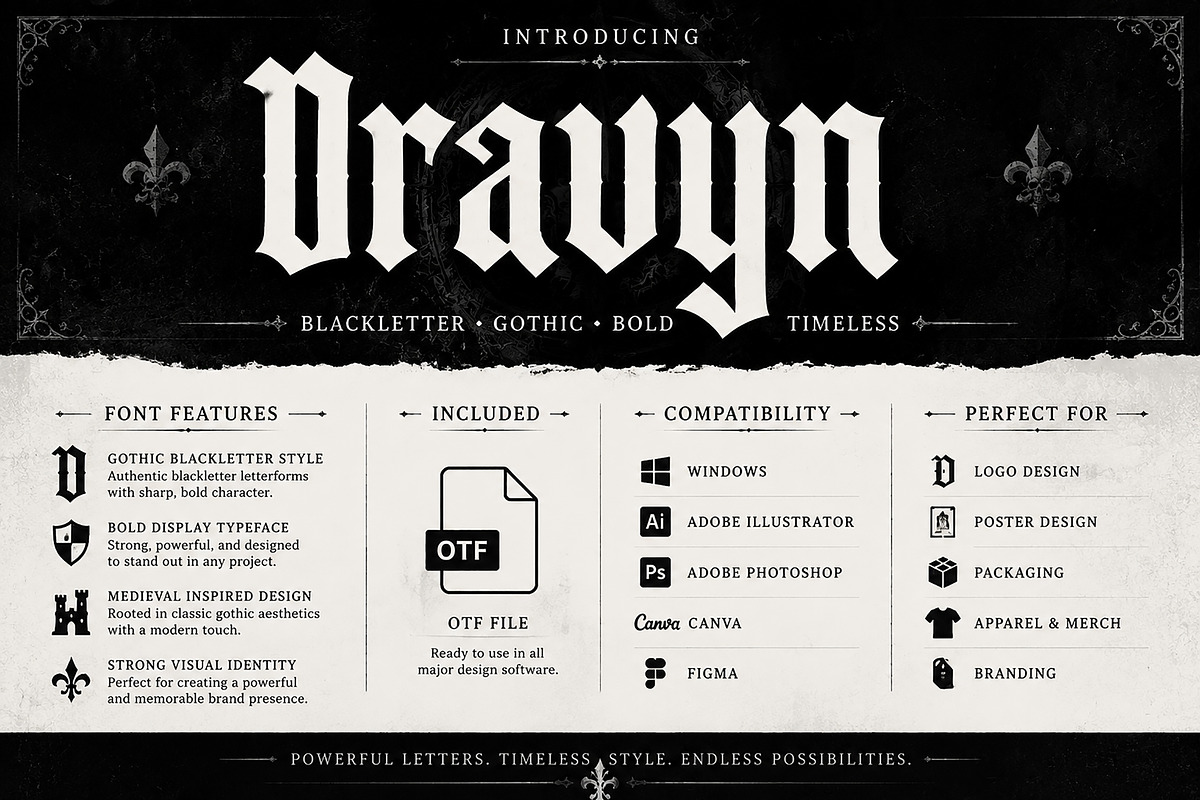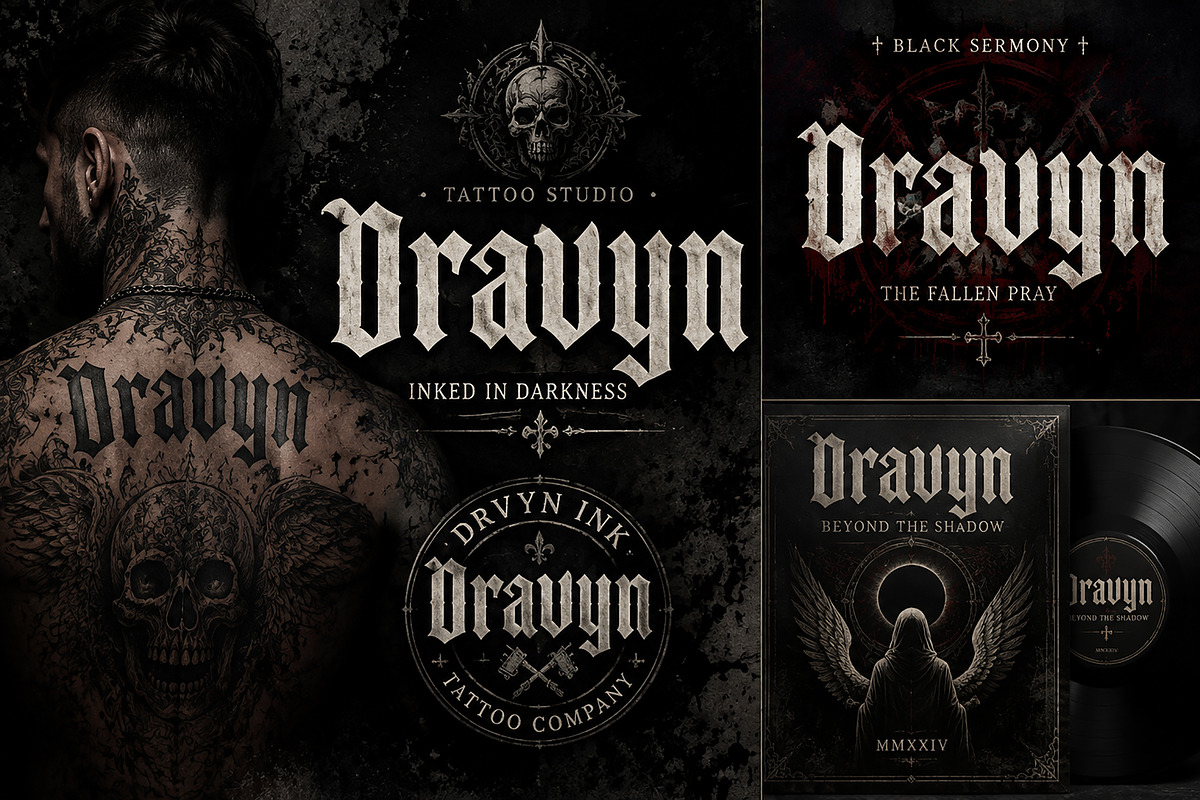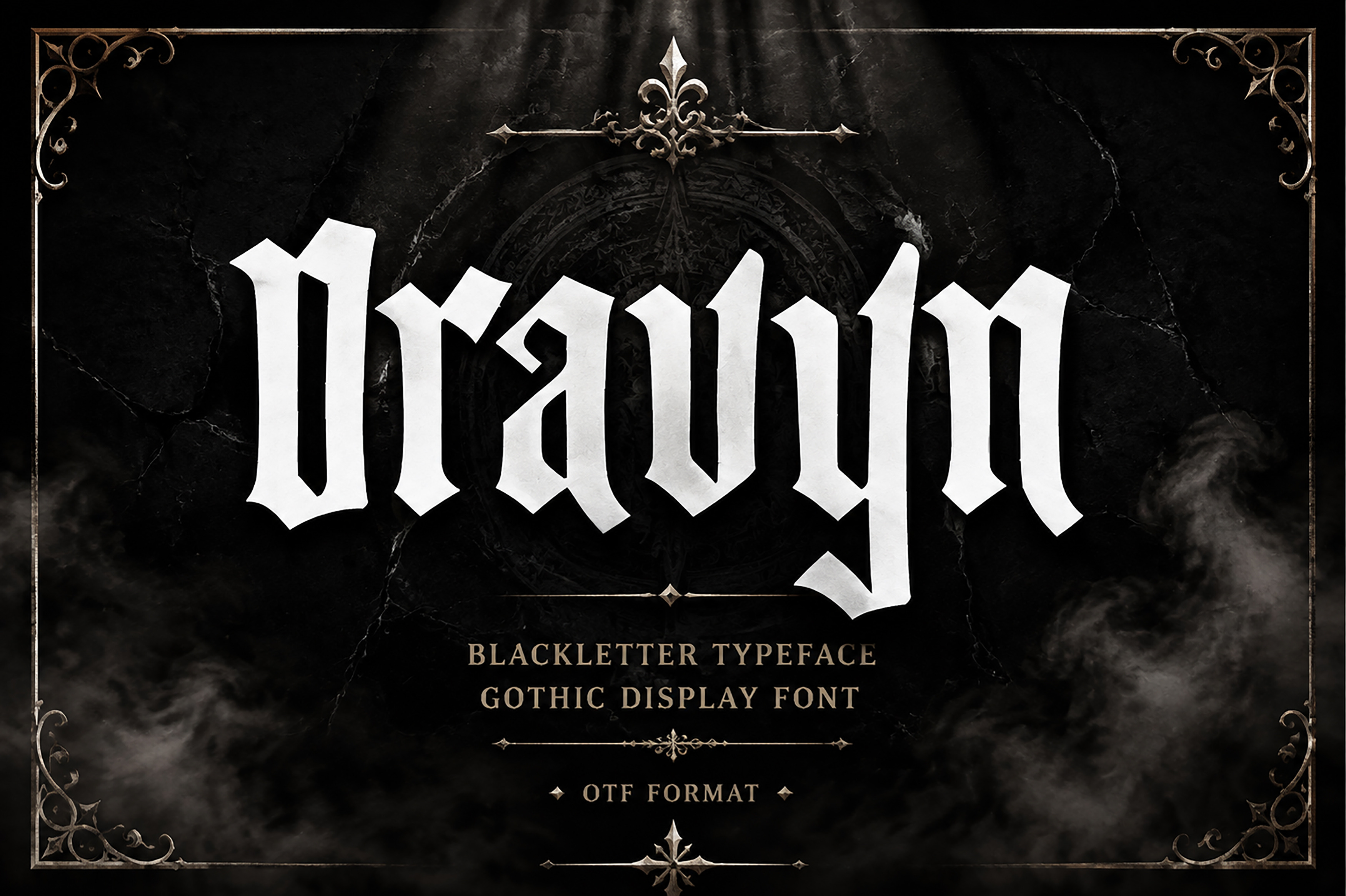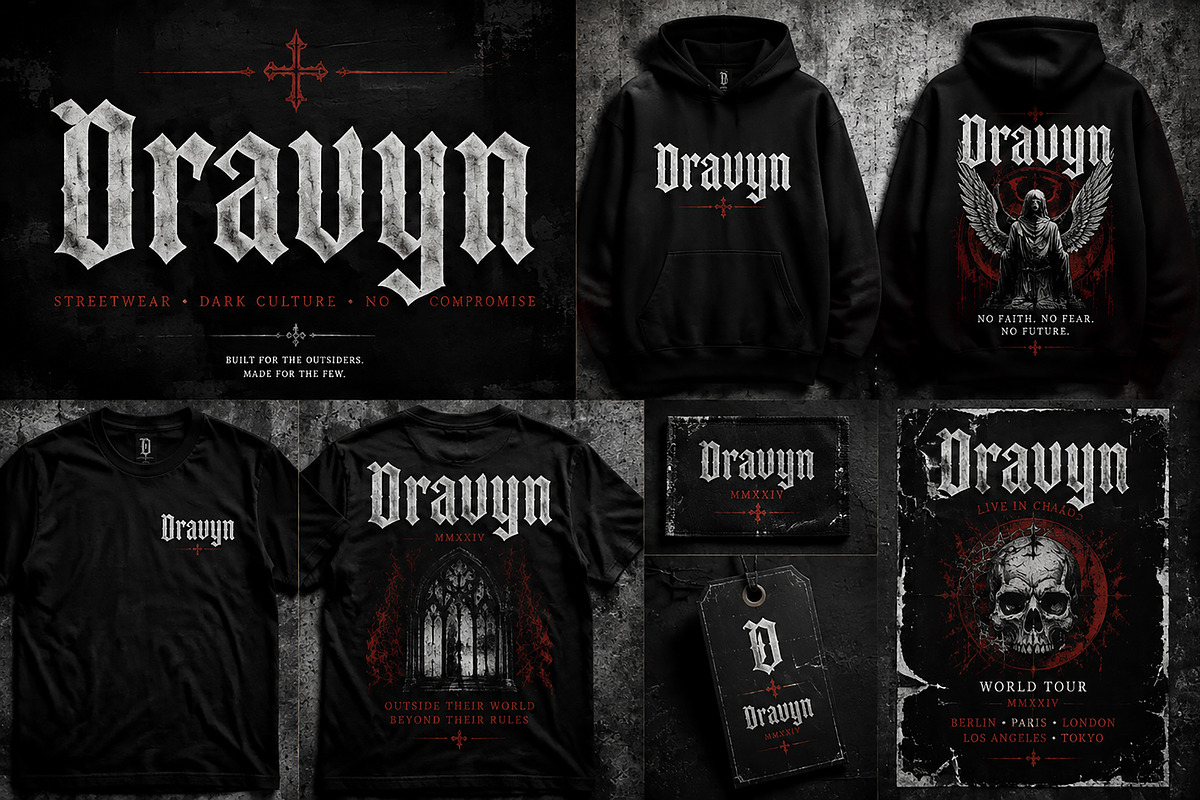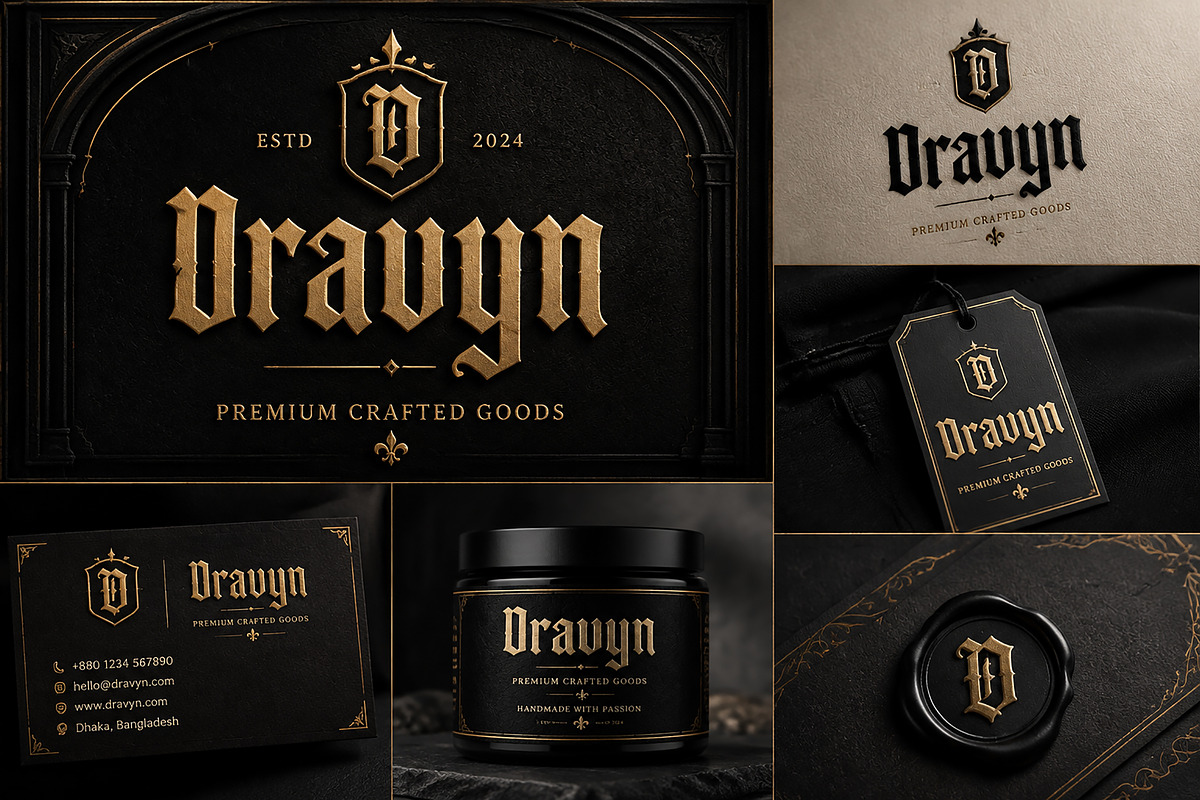
Dravyn – Gothic Blackletter Typeface
A bold medieval-inspired blackletter font designed for logos, branding, apparel, posters, tattoo designs, and premium dark aesthetics.
Dravyn is a powerful Gothic Blackletter display font inspired by medieval typography, dark aesthetics, and timeless visual identity. Designed with sharp letterforms, bold structure, and a strong historical character, Dravyn brings a premium gothic atmosphere to any creative project.
Perfect for designers who need a strong and memorable typeface for branding, logos, posters, apparel, packaging, tattoo designs, album artwork, and alternative fashion projects.
With its dramatic blackletter style and distinctive personality, Dravyn helps create designs that feel luxurious, mysterious, and impactful.
✔ Gothic Blackletter Typeface
✔ Medieval Inspired Letterforms
✔ Bold Display Typography
✔ Strong Visual Identity
✔ Premium Logo & Branding Style
✔ Perfect for Dark / Alternative Design Projects
✔ High Impact Headlines & Titles
Brand Identity
Streetwear & Apparel Design
Tattoo Studio Branding
Metal Band Artwork
Album Covers
Posters
Labels & Product Branding
Merchandise Design
Create bold identities, powerful logos, and unforgettable designs with Dravyn Gothic Blackletter Typeface — a font built for designers who want a strong medieval-inspired aesthetic with a modern professional feel.